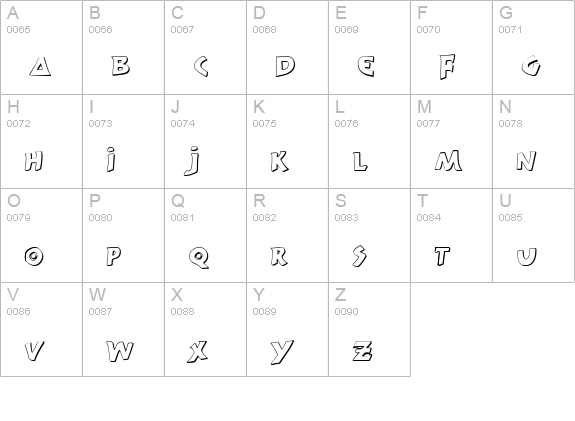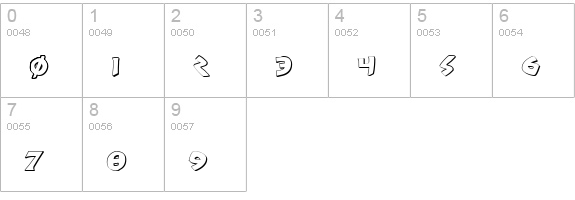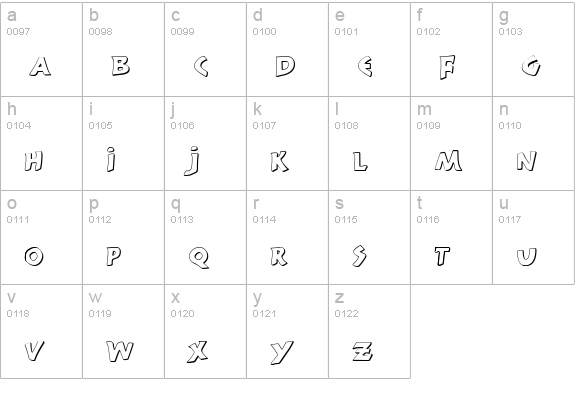
The 300 Trojans Shadow font is a striking and bold typeface that exudes power and strength. Its sharp edges and intricate design make it perfect for creating eye-catching headlines, logos, and posters. The font's unique shadow effect adds depth and dimension to any project, giving it a dynamic and impactful look. What sets the 300 Trojans Shadow font apart is not only its impressive aesthetics but also its accessibility. This font is available for free download at FontsMarket.com, making it easy for designers and creatives to incorporate it into their work without any cost. Whether you're working on a personal project or a professional design, the 300 Trojans Shadow font is a versatile and powerful choice that is sure to make a statement.